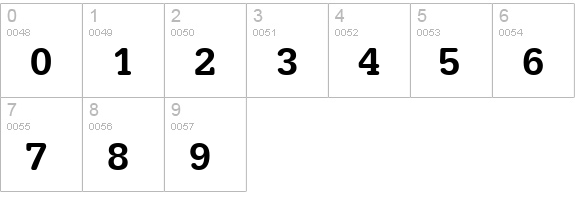
URWTypewriterTMed Font Details
URWTypewriterTMed font is a classic typewriter-style typeface that exudes a sense of nostalgia and authenticity. Its clean and crisp characters emulate the look and feel of a real typewriter, making it perfect for projects that require a vintage touch or a hint of retro charm. With URWTypewriterTMed, you can effortlessly transport your audience back to the golden age of typewriters, where every keystroke left an indelible mark on the page. Its carefully crafted letterforms and distinct serifs make it ideal for a variety of design applications, such as branding, packaging, editorial design, and more. One of the most remarkable aspects of URWTypewriterTMed font is that it is freely available to download at FontsMarket.com. This means that you can enjoy all the benefits of this exceptional typeface without any financial constraints. Whether you are a professional designer or an aspiring typewriter enthusiast, you can now access this font easily and incorporate it into your creative projects with ease. The versatility of URWTypewriterTMed font allows it to adapt seamlessly to various design styles and themes. Whether you are aiming for a vintage-inspired aesthetic or a modern twist on a classic look, this font can effortlessly complement your vision and elevate your designs to new heights. So, if you are looking to add a touch of nostalgia and authenticity to your designs, URWTypewriterTMed font is the perfect choice. Don't miss the opportunity to download it for free at FontsMarket.com and start creating captivating designs that transport your audience to a bygone era.